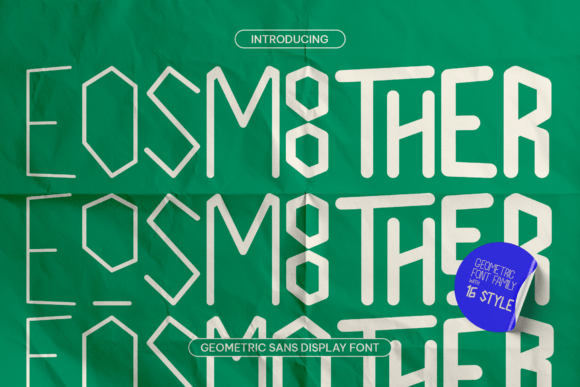
Introducing EOSMOOTHER: The Futuristic Geometric Sans Display Font
In the world of typography, fonts play a crucial role in conveying messages, expressing emotions, and creating visual identities. For designers and crafters, finding the perfect font that combines style, precision, and a unique tone can be a daunting task. However, if you’re looking for a font that embodies a futuristic vibe, look no further than EOSMOOTHER. This geometric sans display font family is built with precision, structure, and a distinct futuristic tone, making it perfect for headlines, editorial layouts, posters, tech interfaces, and branding that needs a forward-thinking edge.
Clean Angles and Smooth Curves
EOSMOOTHER is crafted with clean angles and smooth curves, making it both minimal and memorable. The font’s bold geometry shines in various design applications, from fashion and lifestyle branding to sci-fi media and tech interfaces. The clean lines and smooth curves of EOSMOOTHER create a sense of precision and sophistication, making it ideal for designers who want to create a lasting impression.
Flexibility and Versatility
One of the standout features of EOSMOOTHER is its flexibility. The font family comes with 16 unique styles, giving designers the freedom to create powerful visual hierarchies and experimental typographic compositions. Whether you’re designing for modern fashion, sci-fi media, or lifestyle branding, EOSMOOTHER provides the perfect tools to keep your message clear and striking.
EOSMOOTHER is a game-changer for designers and crafters who want to elevate their typography skills. The font’s futuristic tone and geometric design make it perfect for a wide range of design applications, including:
- Headlines and editorial layouts: EOSMOOTHER’s bold geometry and clean lines make it perfect for headlines and editorial layouts that need a forward-thinking edge.
- Posters and prints: The font’s precision and sophistication make it ideal for posters and prints that require a striking visual impact.
- Tech interfaces: EOSMOOTHER’s clean lines and smooth curves make it perfect for tech interfaces that require a modern and futuristic tone.
- Branding and advertising: The font’s versatility and flexibility make it ideal for branding and advertising campaigns that need a unique and memorable visual identity.
Key Features of EOSMOOTHER
So, what makes EOSMOOTHER stand out from other fonts? Here are some of its key features:
- Geometric sans design: EOSMOOTHER is built with a geometric sans design that gives it a unique and futuristic tone.
- Clean angles and smooth curves: The font’s clean angles and smooth curves make it both minimal and memorable.
- 16 unique styles: EOSMOOTHER comes with 16 unique styles, giving designers the flexibility to create powerful visual hierarchies and experimental typographic compositions.
- Precision and sophistication: The font’s precision and sophistication make it perfect for designers who want to create a lasting impression.
| Font Name | Eosmoother Font |
| Author | Indotype Foundry |
In conclusion, EOSMOOTHER is a game-changing font that embodies a futuristic tone and geometric design. Its clean angles and smooth curves make it both minimal and memorable, while its flexibility and versatility make it perfect for a wide range of design applications. Whether you’re a designer or crafter, EOSMOOTHER is the perfect tool to elevate your typography skills and create stunning visual identities.